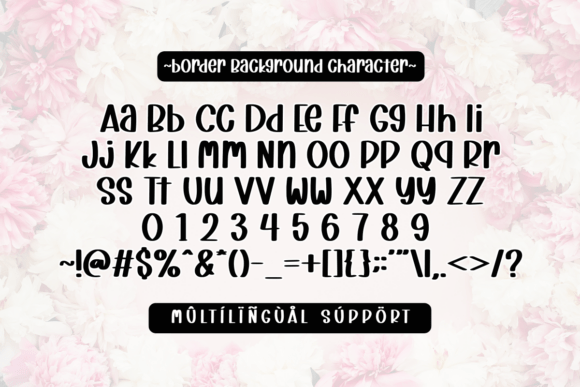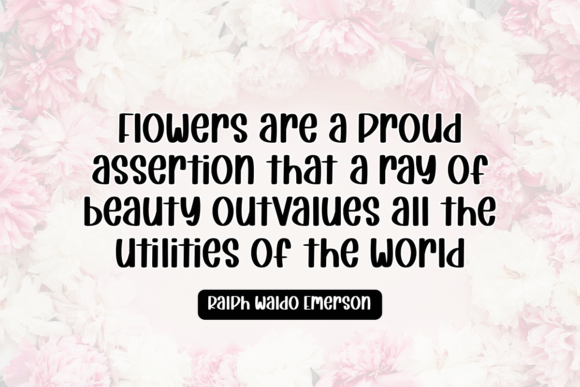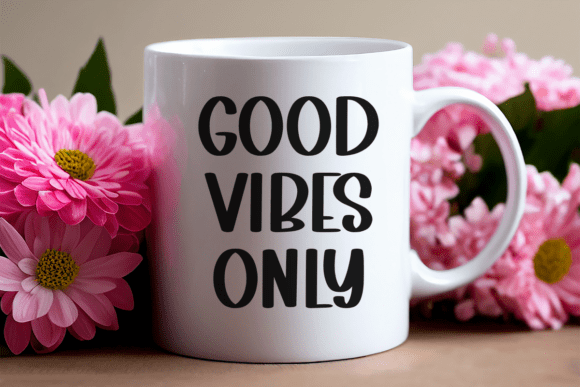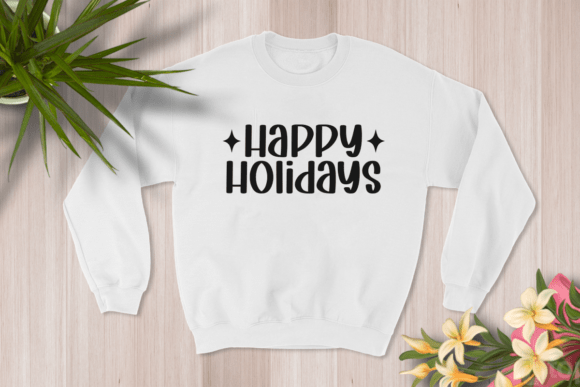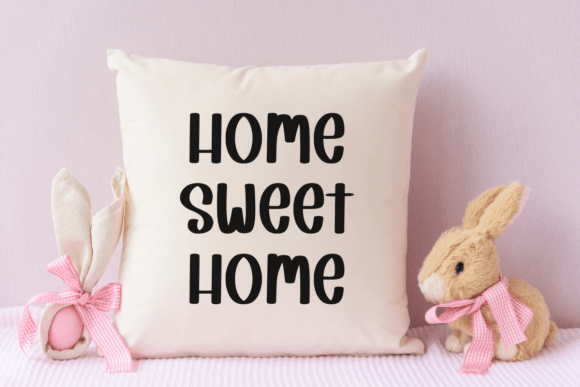
Introducing Border Background Font: Add a Touch of Holiday Cheer to Your Designs
Are you looking for a font that can bring a festive and fun vibe to your designs? Look no further than Border Background Font! This sans serif font is perfect for adding a touch of holiday cheer to your creations, making it ideal for designers and crafters who want to create eye-catching and engaging graphics.
What Makes Border Background Font Special?
Border Background Font is a unique and playful font that features bold lines and curves, giving it a fun and festive feel. Its sans serif design makes it easy to read and versatile, allowing you to use it for a variety of design projects. Whether you’re creating holiday cards, invitations, or social media graphics, this font is sure to add a touch of cheer to your designs.
Perfect for Holiday-Themed Designs
Border Background Font is specifically designed with the holiday season in mind. Its playful and festive vibe makes it perfect for creating holiday-themed graphics, such as:
- Digital and printable art
Key Features of Border Background Font
Here are some of the key features that make Border Background Font a great addition to your design toolkit:
- Playful curves and bold lines: Give your designs a fun and festive feel with the font’s unique curves and bold lines.
- Sans serif design: Make your text easy to read with the font’s clean and simple sans serif design.
- Versatile: Use the font for a variety of design projects, from holiday cards to social media graphics.
Tips for Using Border Background Font
Here are some tips for getting the most out of Border Background Font:
- Pair it with other festive fonts: Combine Border Background Font with other festive fonts to create a unique and eye-catching design.
- Use it for headings and titles: Take advantage of the font’s bold lines and curves by using it for headings and titles.
- Experiment with colors and textures: Add an extra layer of depth and interest to your designs by experimenting with different colors and textures.
Border Background Font is a fun and festive sans serif font that’s perfect for adding a touch of holiday cheer to your designs. With its playful curves and bold lines, this font is ideal for creating holiday-themed graphics, such as cards, invitations, and social media posts. Whether you’re a designer or crafter, Border Background Font is a great addition to your toolkit.